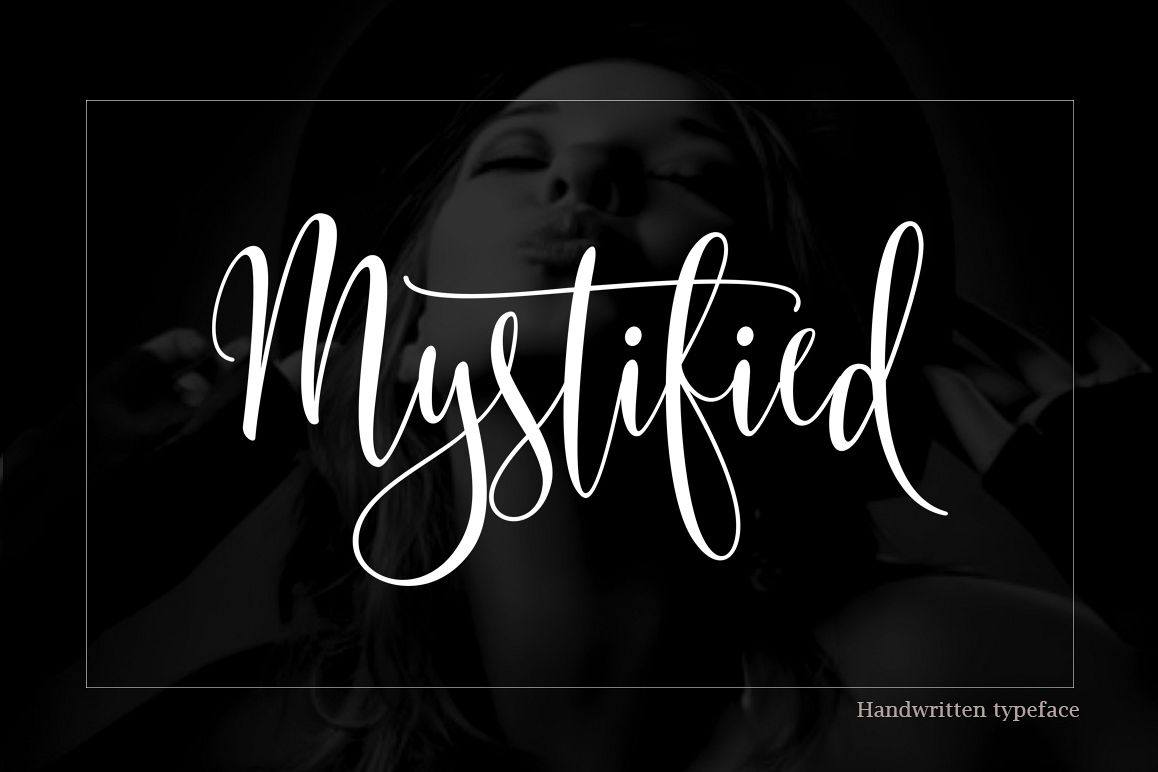
Mystified
Mystified Font is a interconnected font with beautiful welded letters. The font contains beautiful smooth and elegant letters and is great for creating cards such as wedding invitations and birthday cards but also can be used to create beautiful signs and decorate various items.